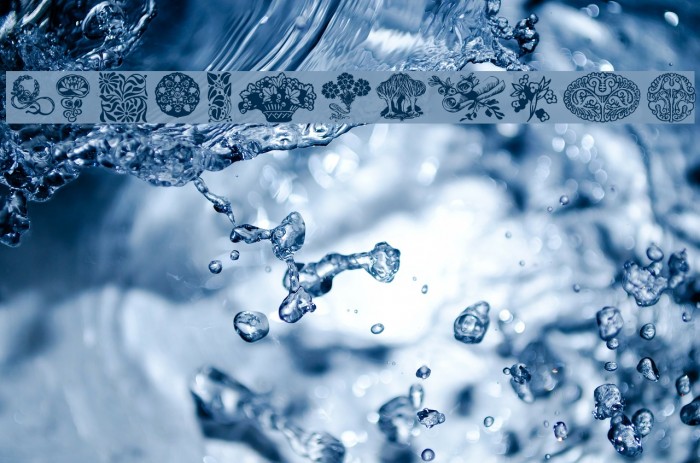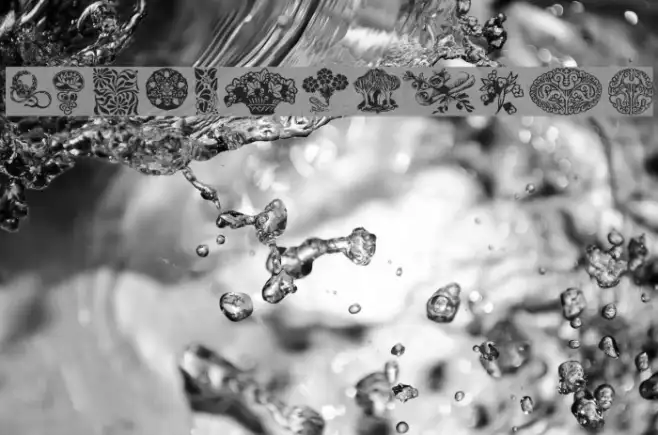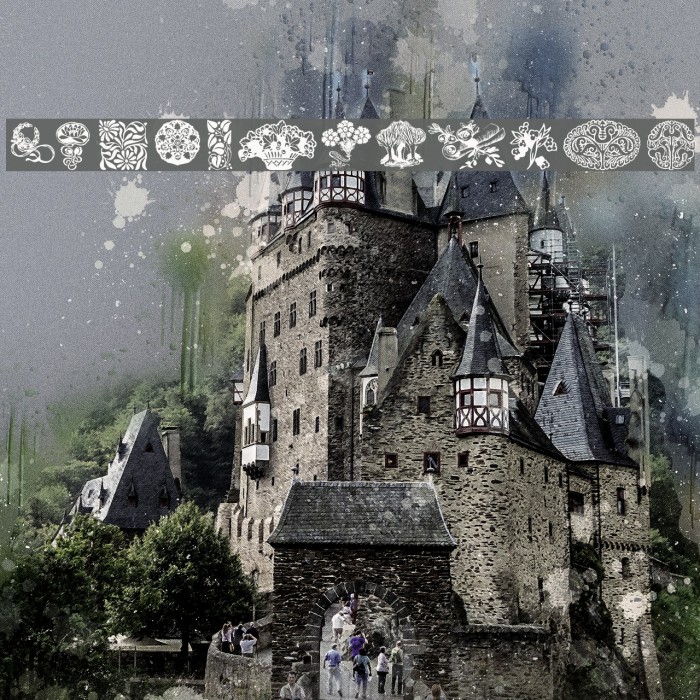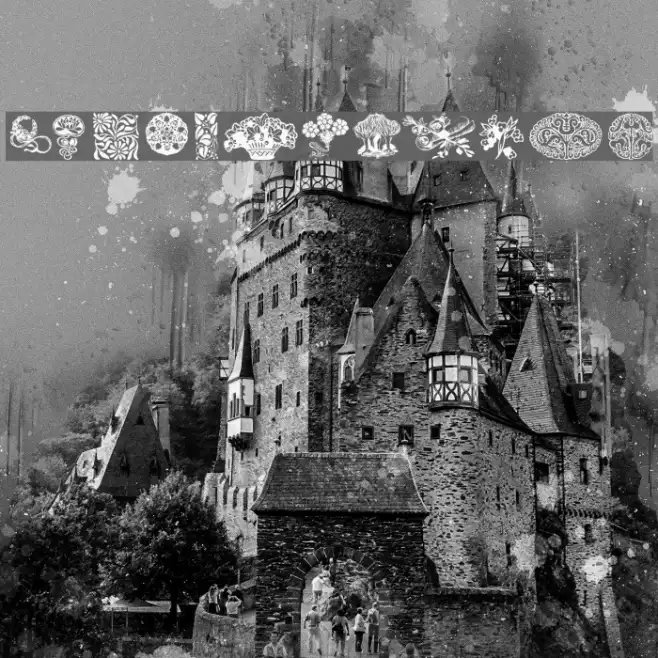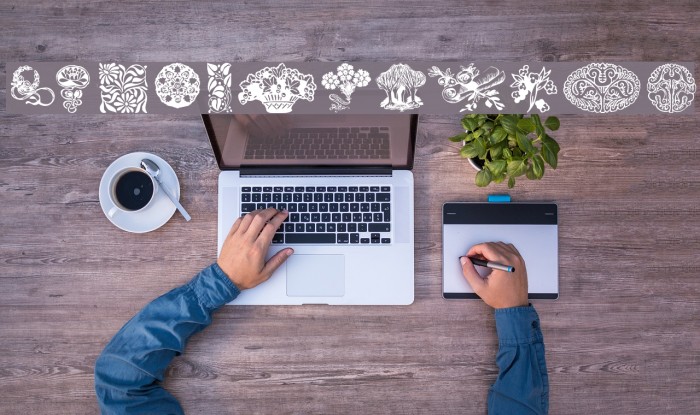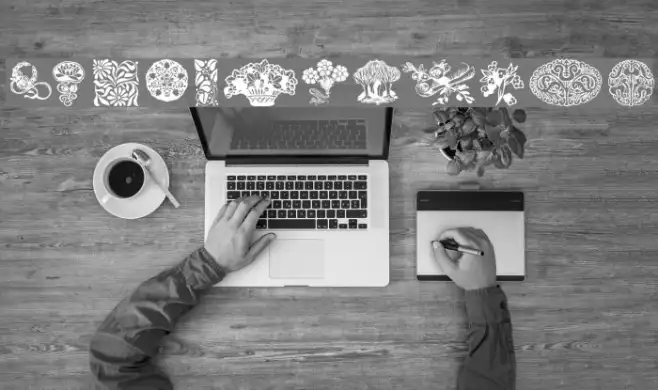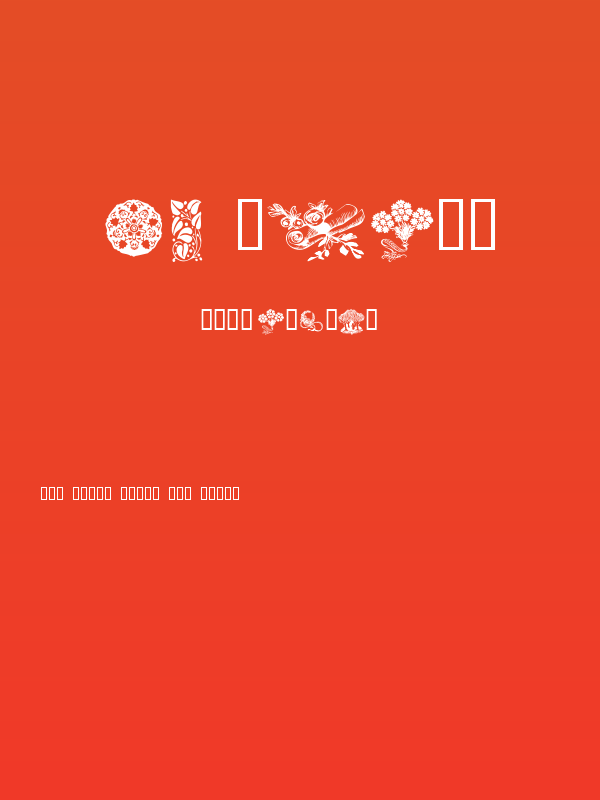
Design5 Font
Design5 Description
This is not a valid font. The image contains decorative elements or symbols that do not represent a complete or usable typeface. The designs appear to be ornamental or illustrative, lacking the necessary components to form a coherent alphabet or set of characters suitable for typography.